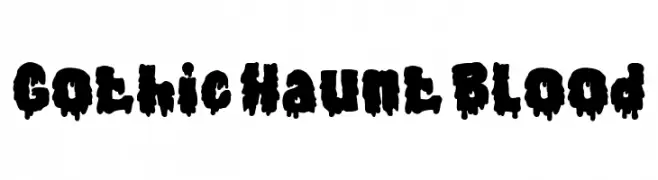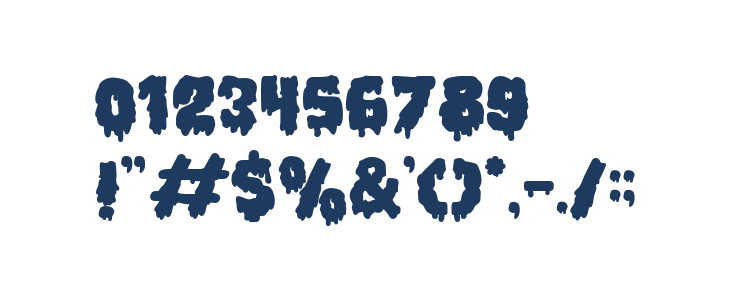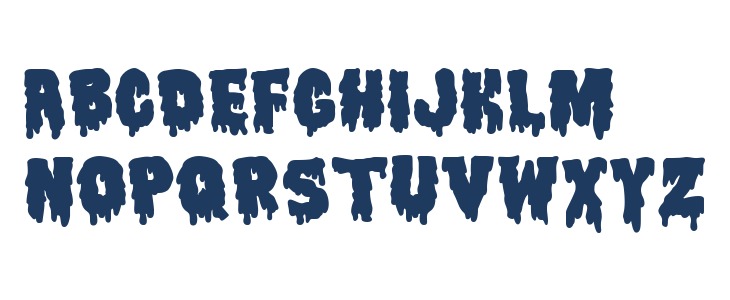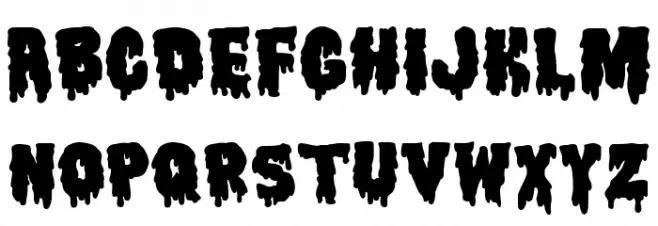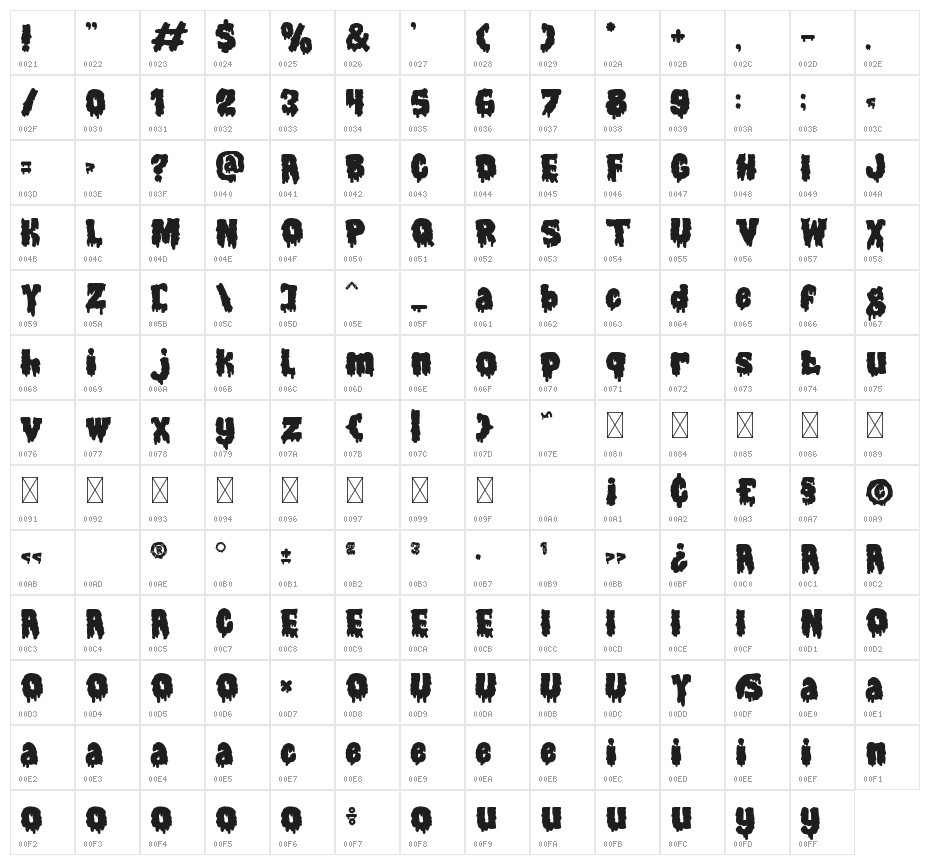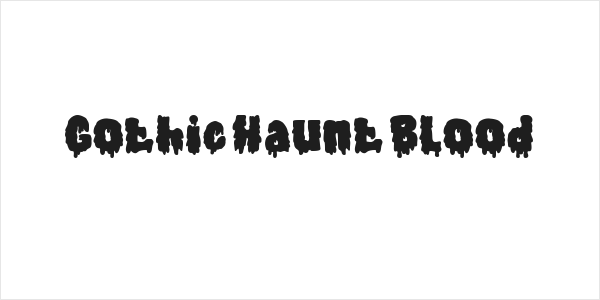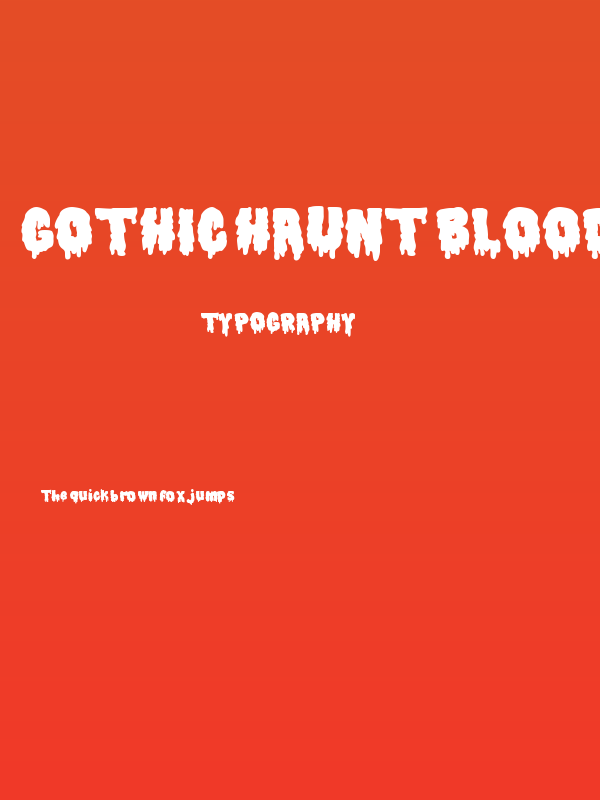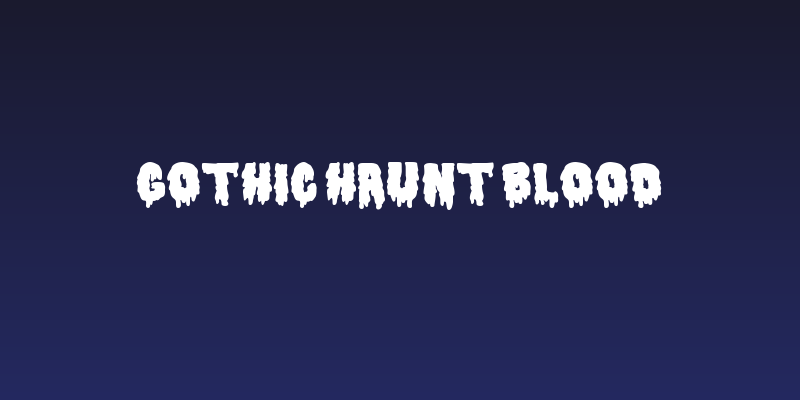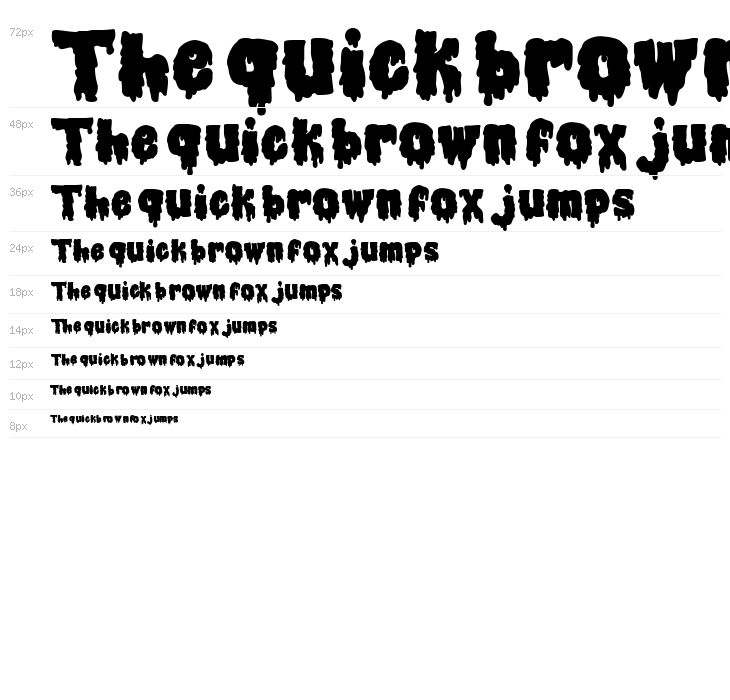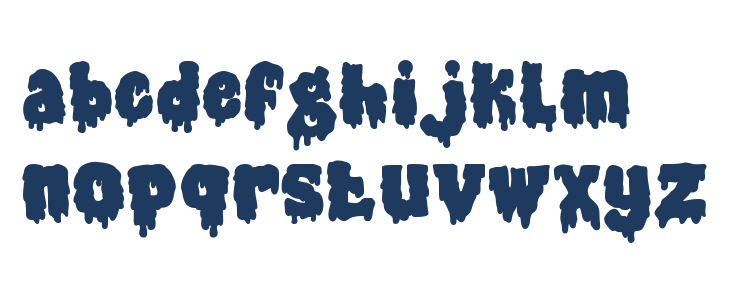
Gothic Haunt Blood Font
Gothic Haunt Blood Description
A bold, decorative display font with irregular, dripping edges that evoke a sense of horror or something melting, reminiscent of blood or slime. The characters are heavy, rounded, and uneven, giving a spooky and dramatic effect.
| Overall Style | Decorative, Horror, Thematic |
| Use Case | Headlines, Posters, Logos, Event Promotions |
| Proposed Projects | Halloween posters, haunted house flyers, horror movie titles, spooky party invitations, themed merchandise. |